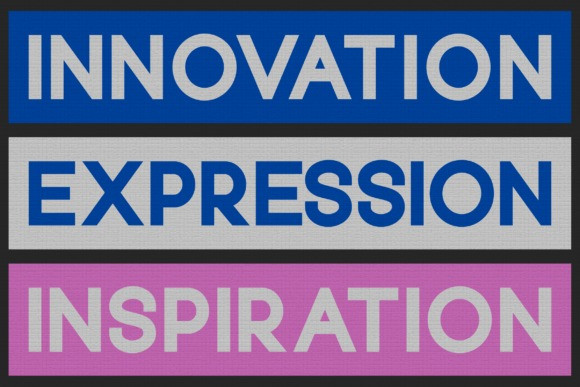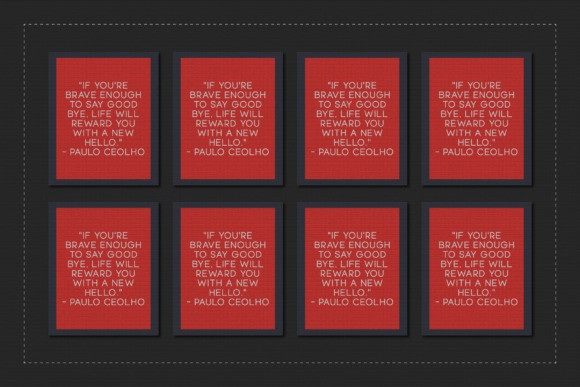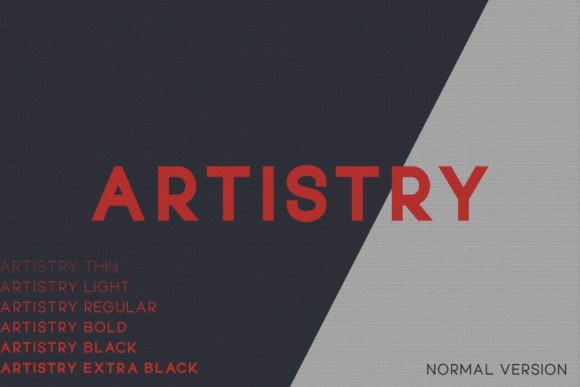
Artistry Font
Artistry Font is the embodiment of elegance and minimalism. Available in 6 different thicknesses, this sans serif collection perfectly blends modernity and elegance. Crafted with utmost precision, it easily enhances any project, whether it’s a magazine, logo or movie poster. Discover the perfect balance between sophistication and simplicity, allowing your designs to exude timeless charm. Unlock the power of our font family today.